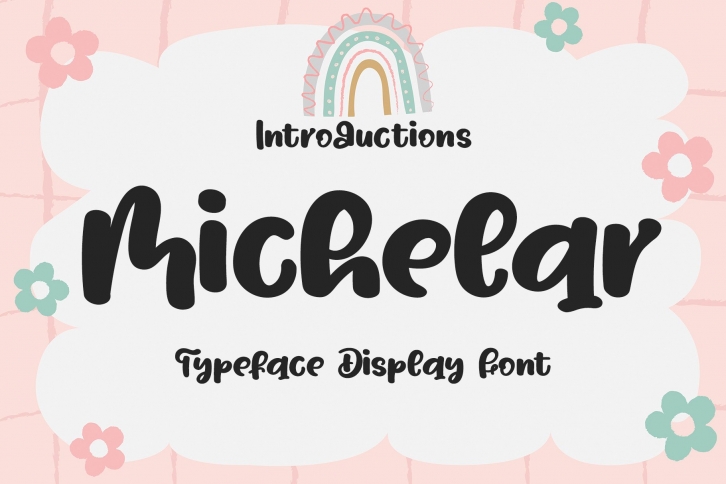
Michelar is a playful handwritten font with a contemporary atmosphere and impeccable form, inspired by timeless classic calligraphy. Balanced and varied, this font was designed to enhance the beauty of your projects.